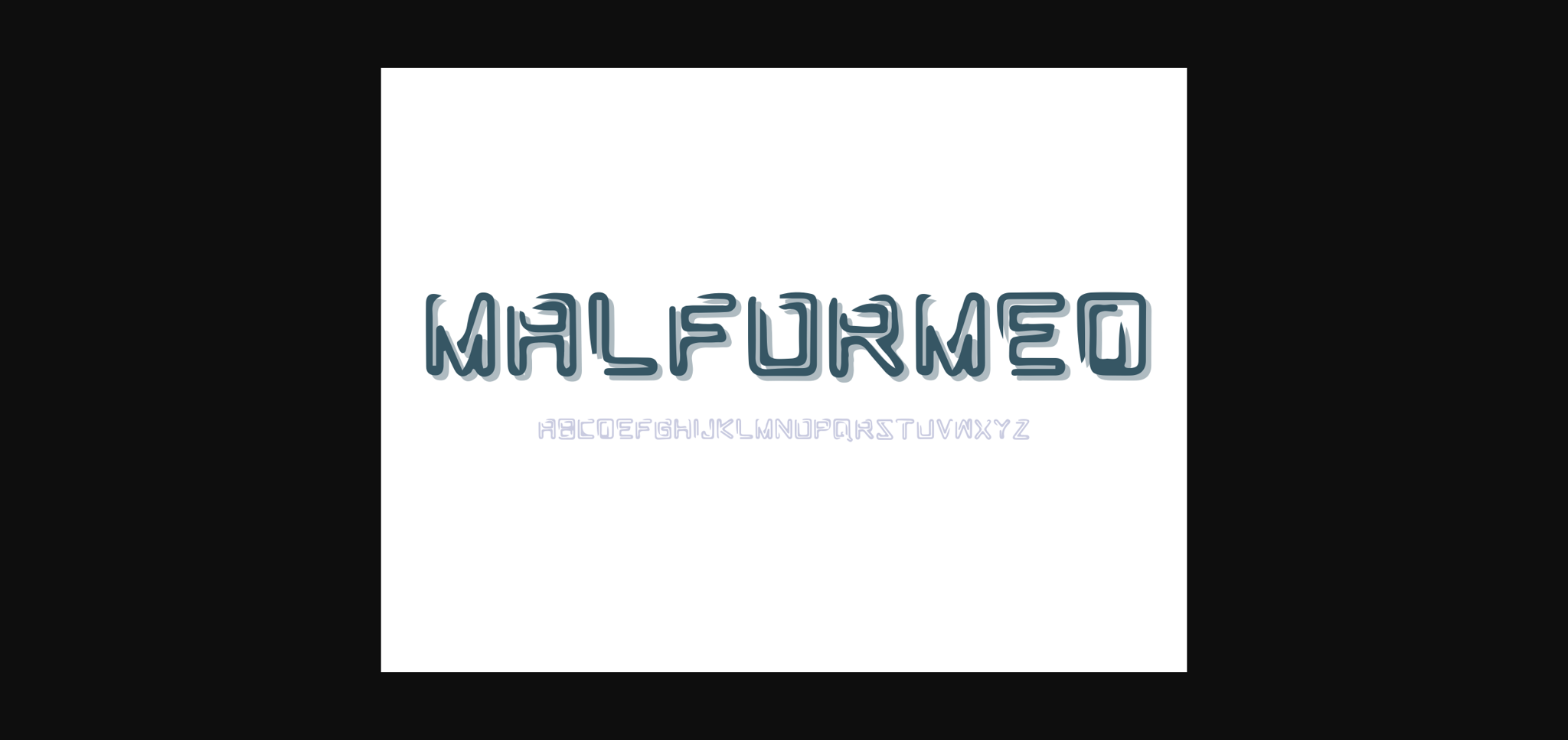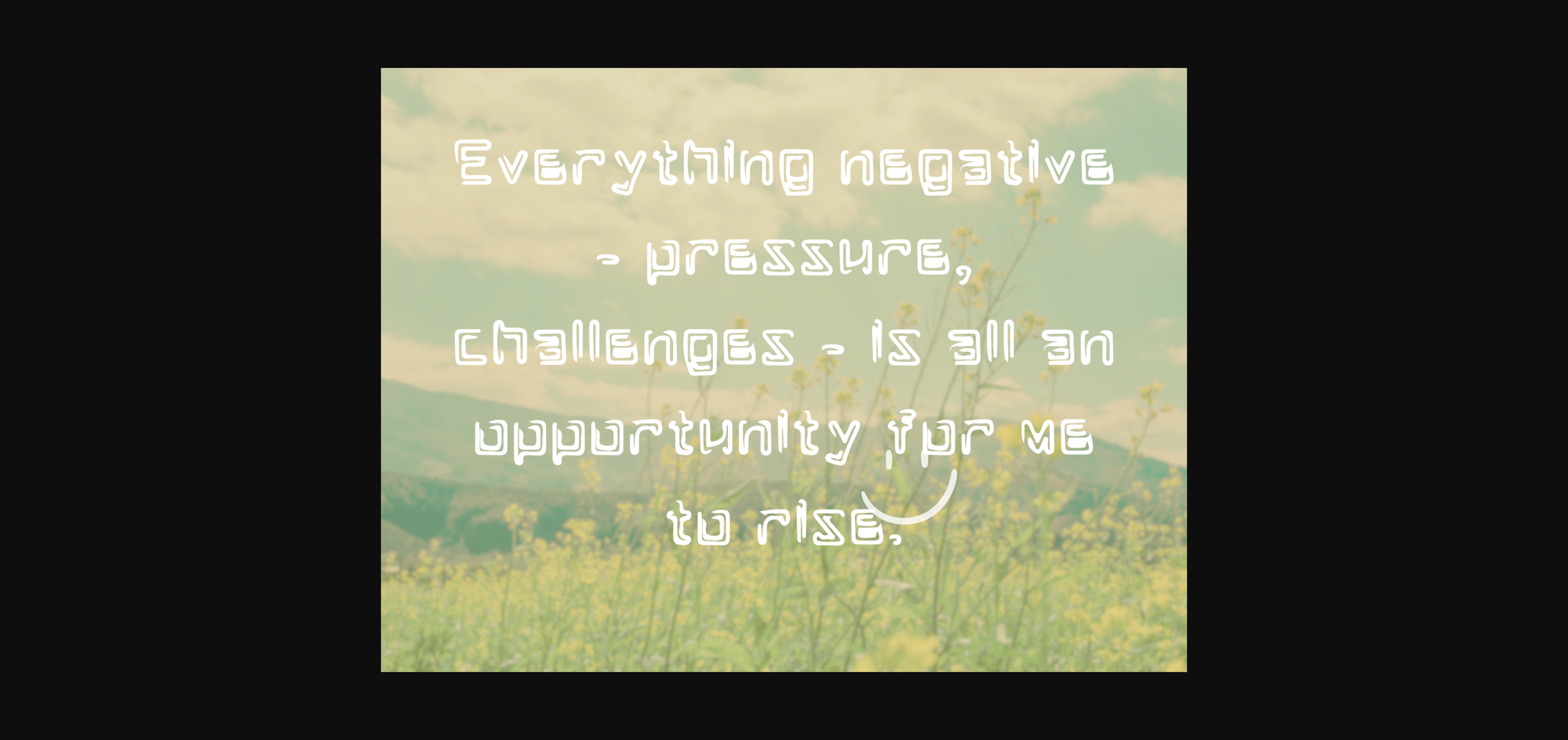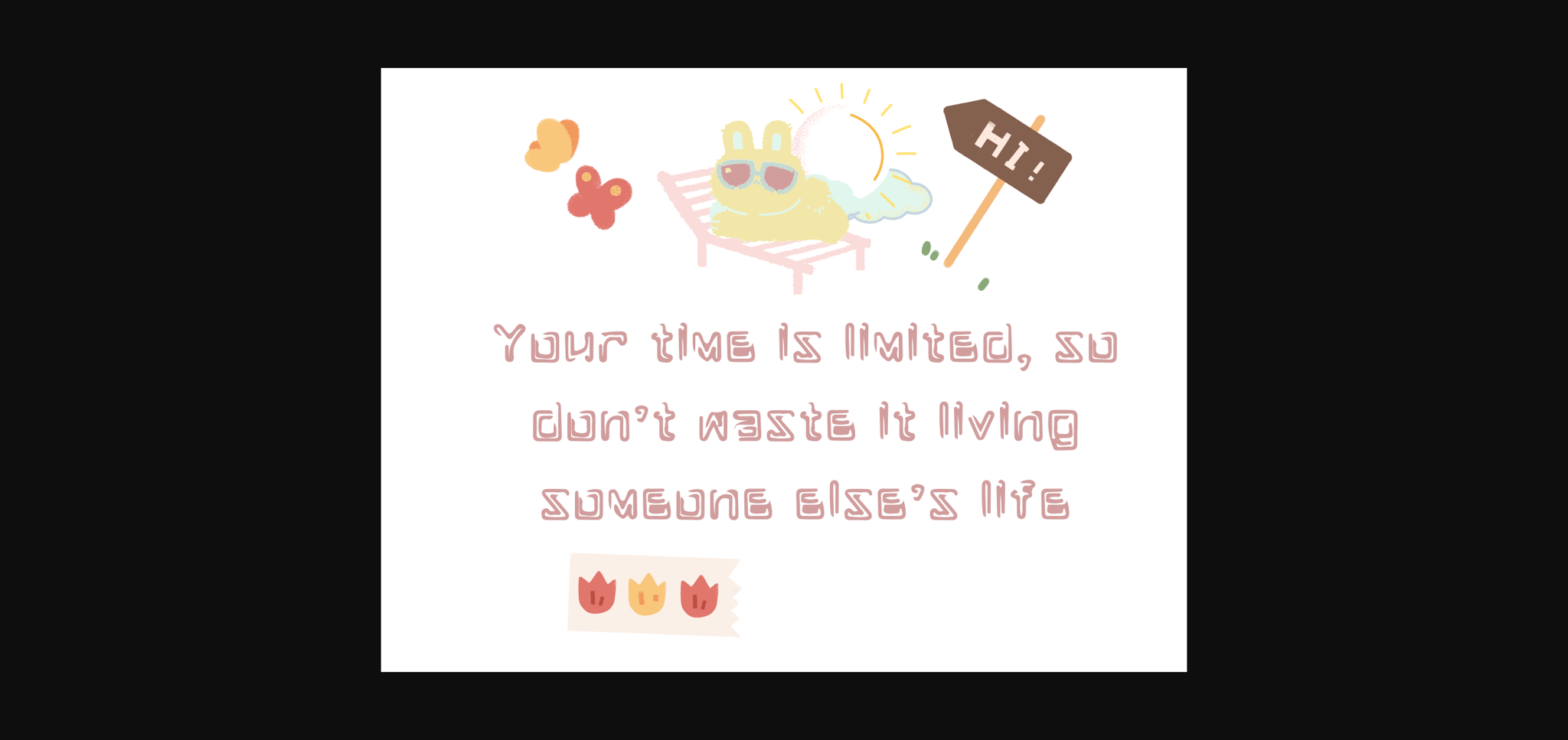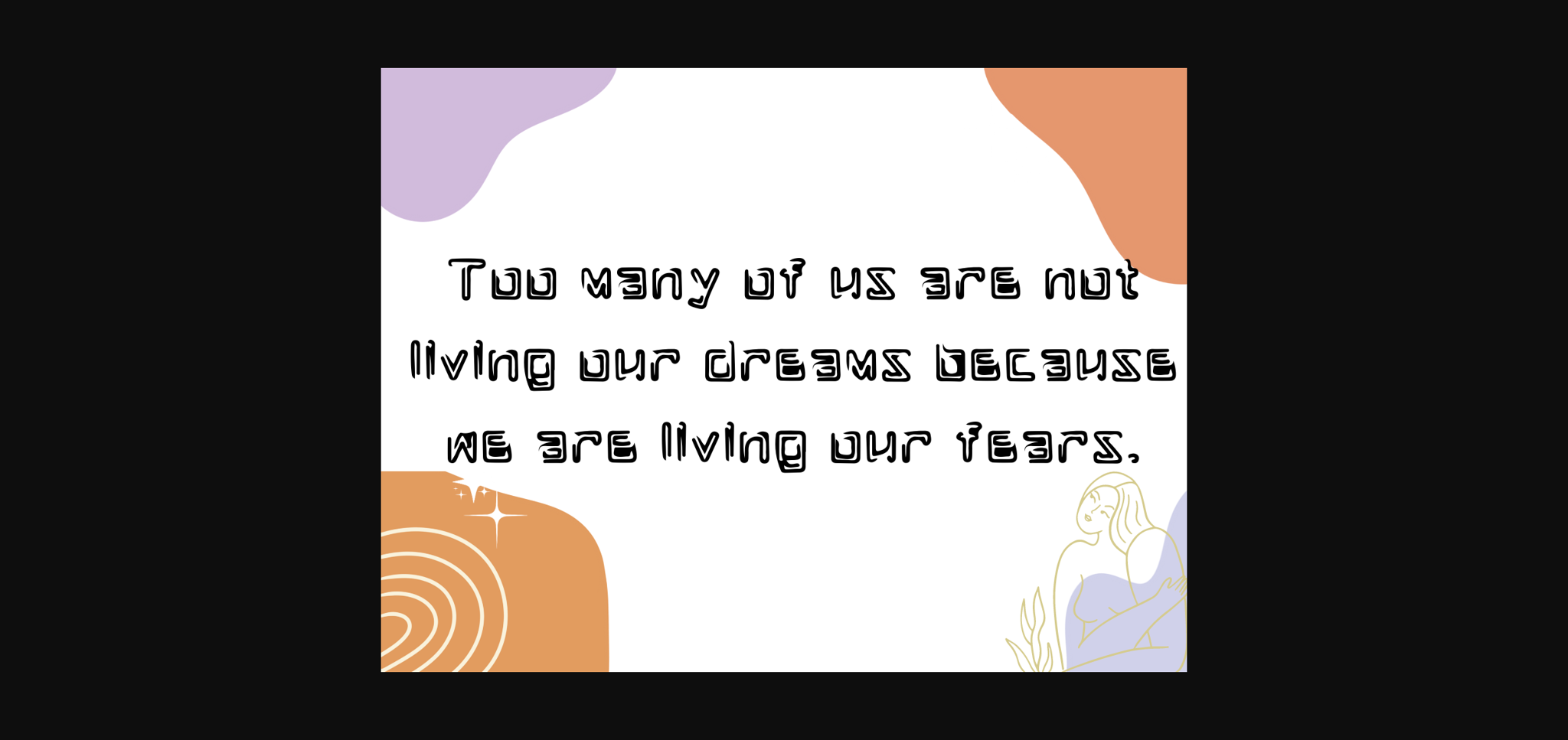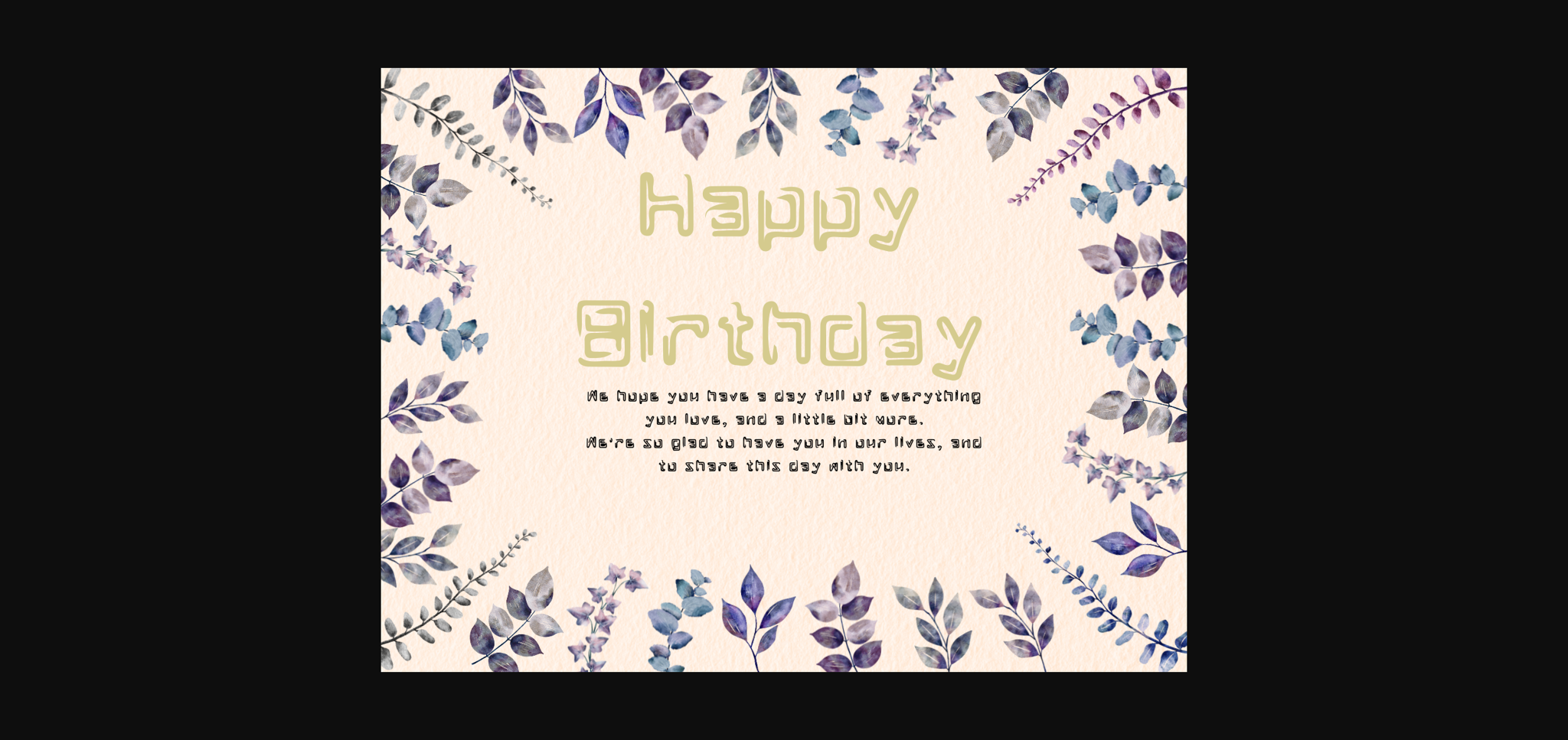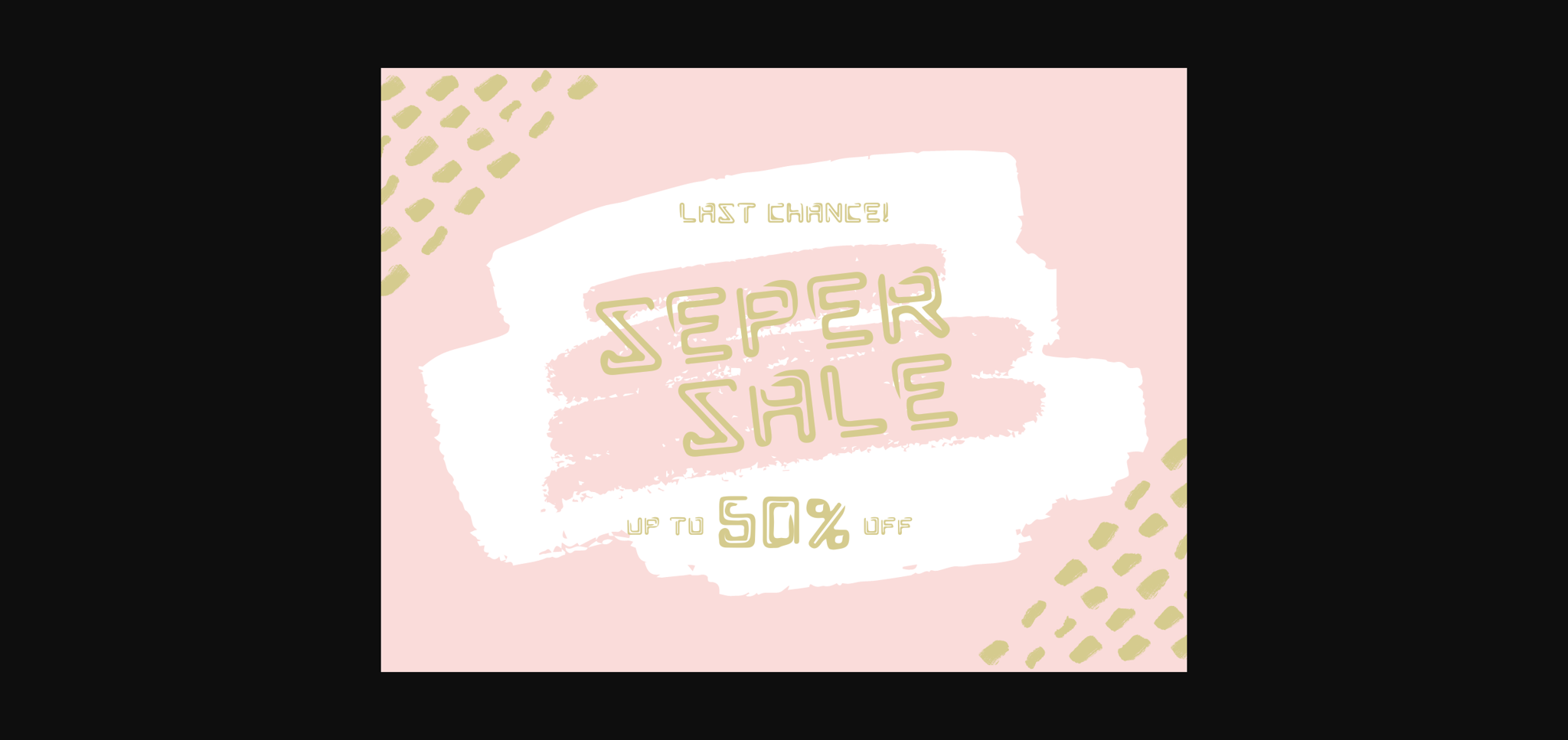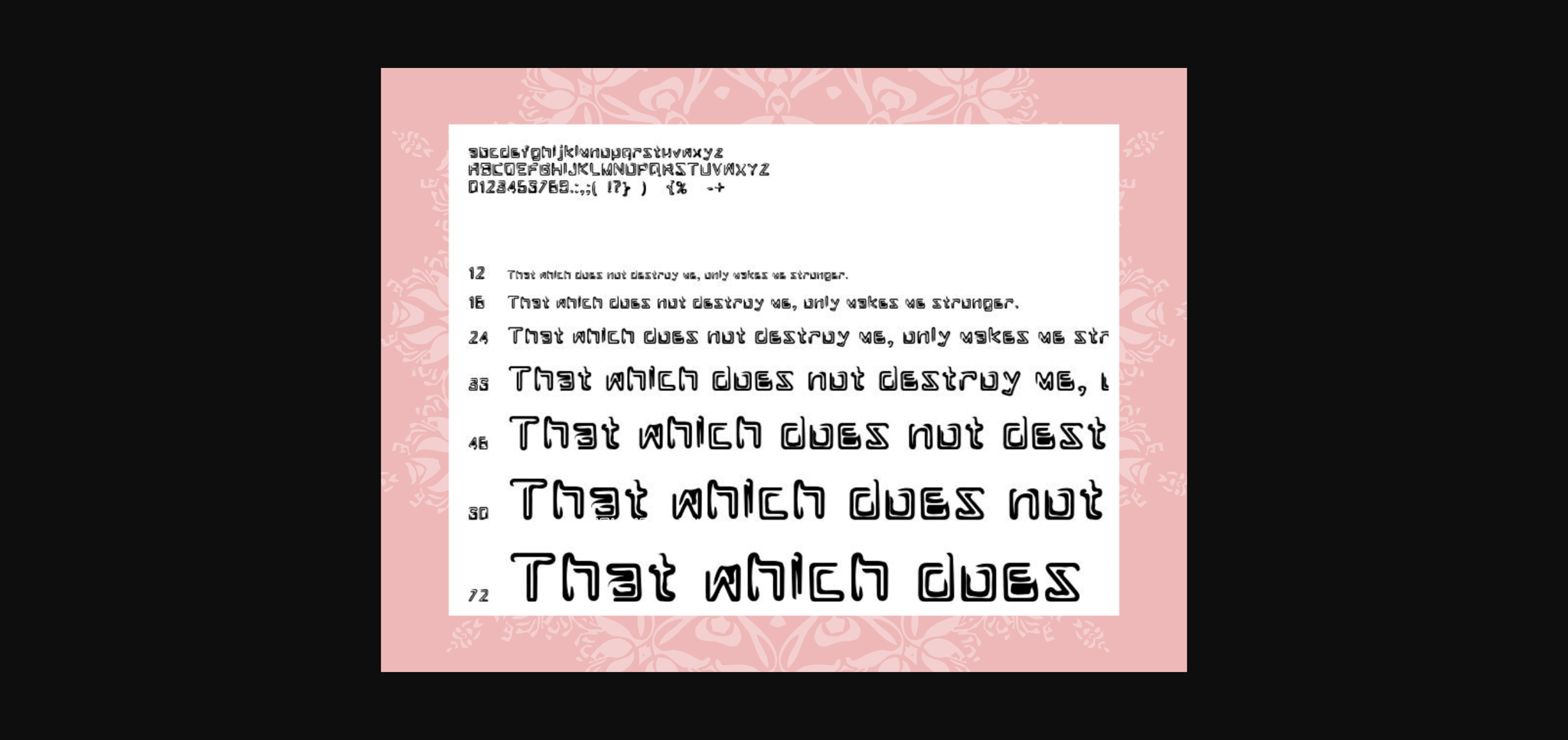
About Malformed Font
Malformed is an incredibly unique sans serif font. Masterfully designed to become a true favorite, this font has the potential to bring each of your creative ideas to the highest level!